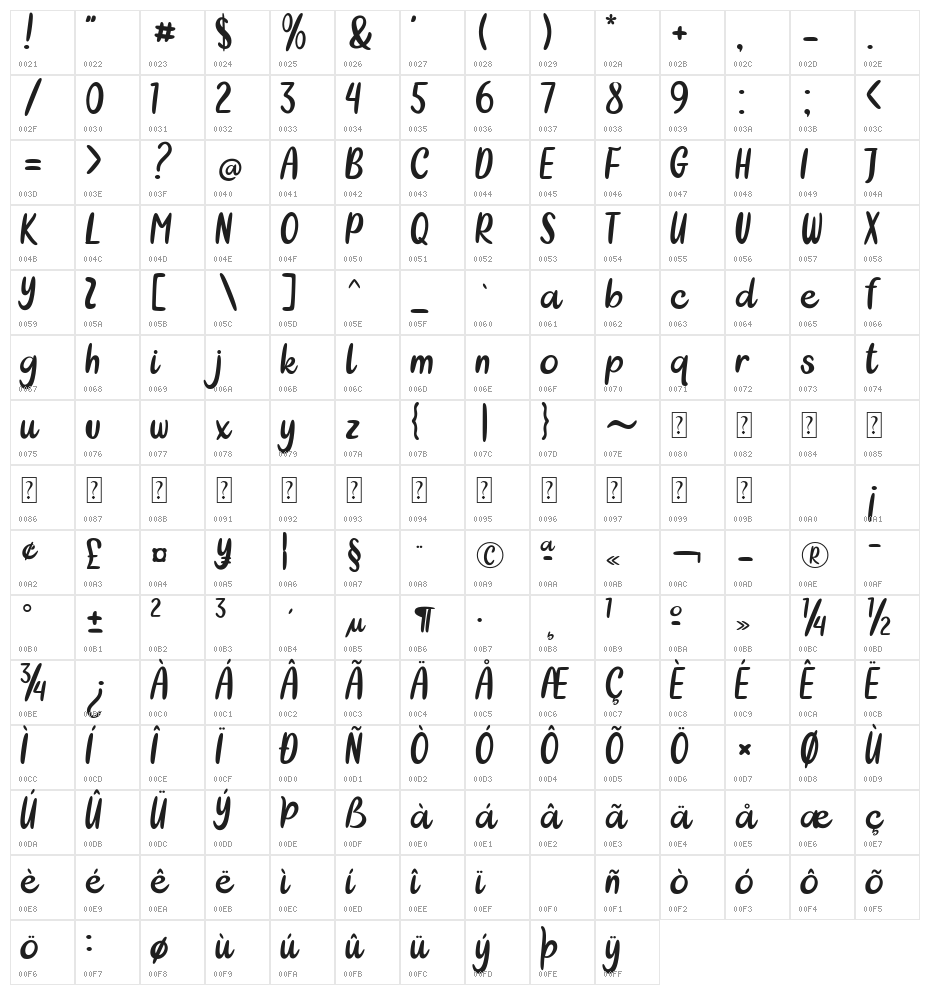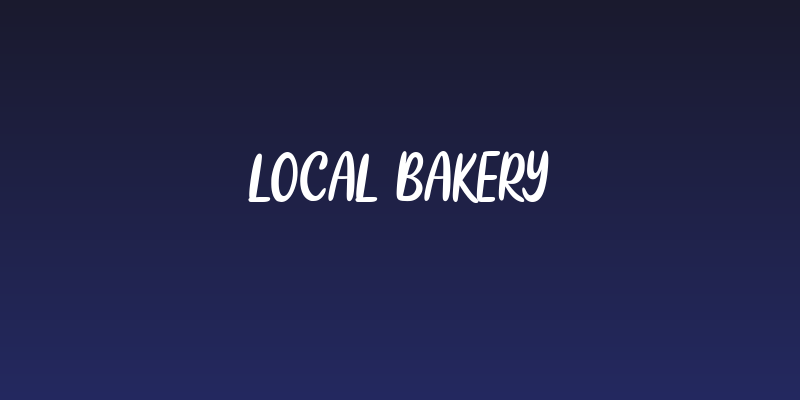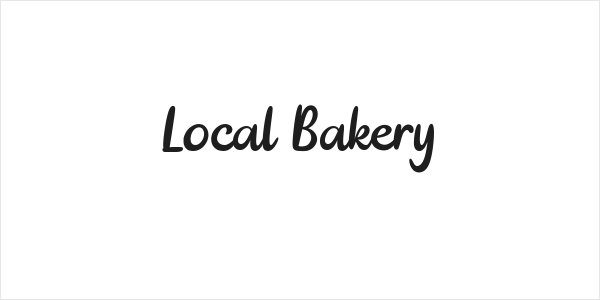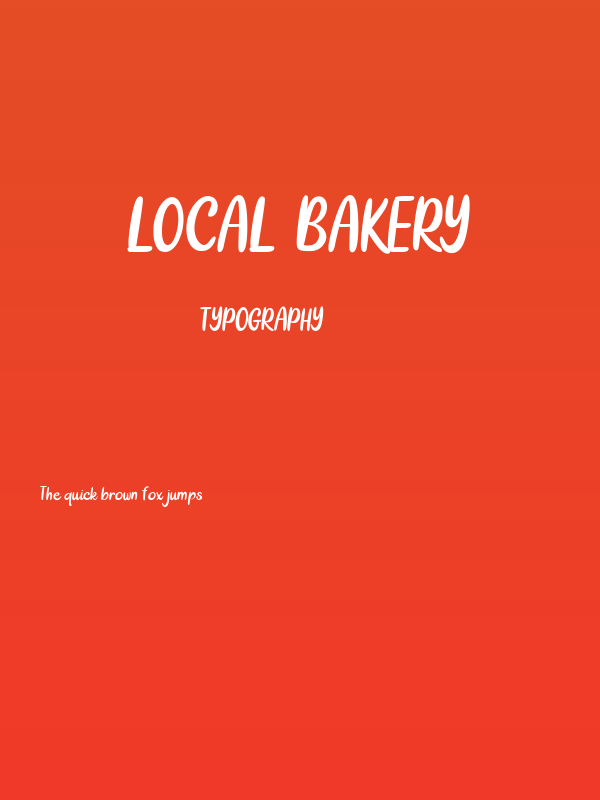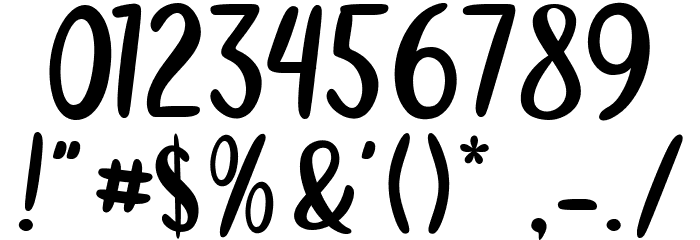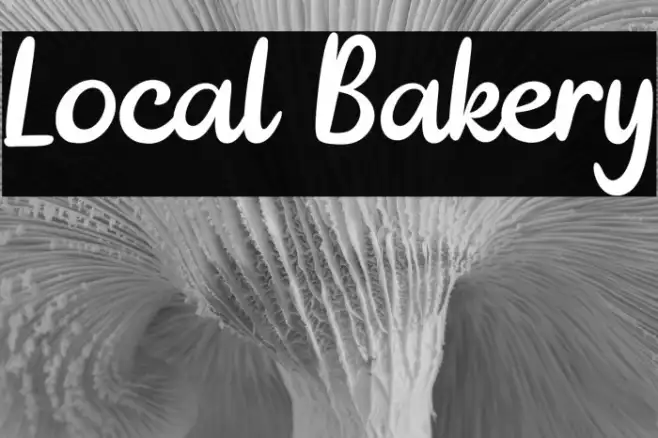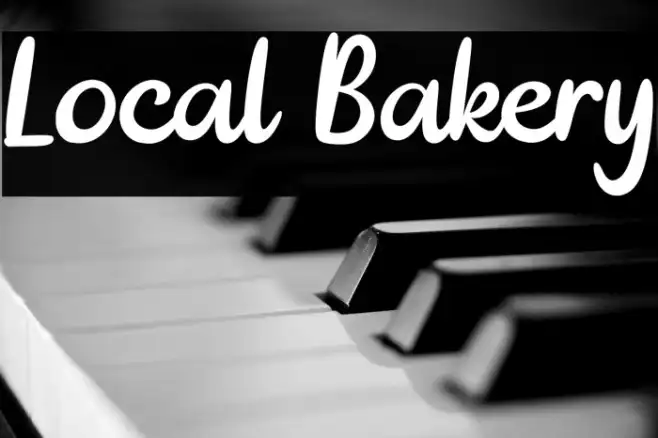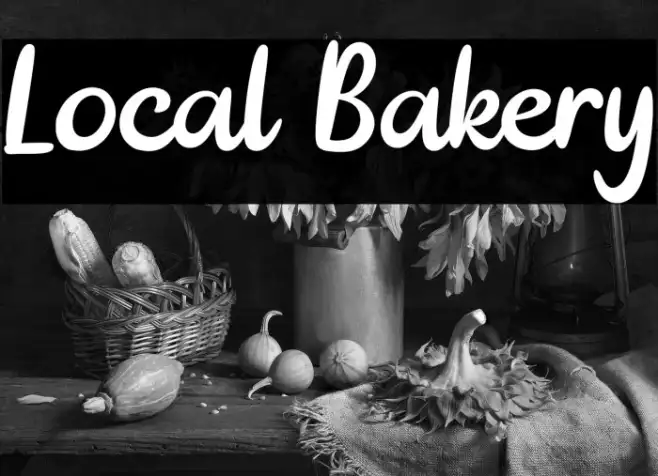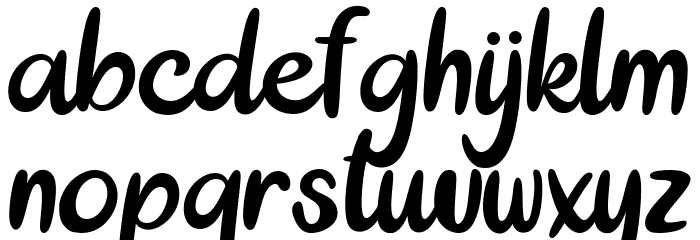
Local Bakery Font
Local Bakery Description
This font exudes a playful and casual vibe with its handwritten style, characterized by smooth, flowing curves and a slightly slanted orientation. The letters are bold and rounded, giving them a friendly and approachable appearance. The uppercase and lowercase letters maintain a consistent style, with the lowercase letters slightly smaller and more compact. Numbers and special characters are designed to match the overall aesthetic, ensuring a cohesive look across all text. The font's informal nature makes it ideal for projects that require a personal touch, such as invitations, greeting cards, or branding for creative businesses.